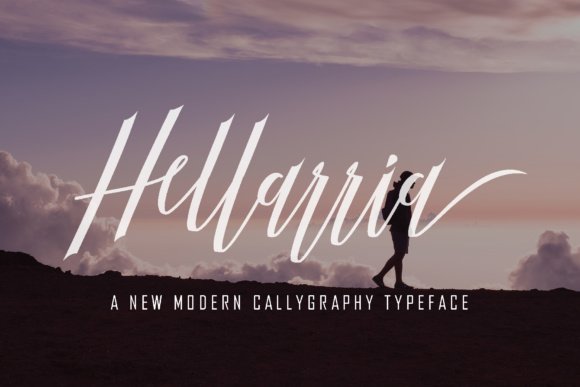
The Perfect Script Font for Your Next Creative Project
Have you ever found yourself stuck in a creative rut, struggling to come up with the perfect font to match your vision? You know the feeling – it’s like your entire design is waiting for the perfect script to tie it all together. That’s exactly what happened to me when I was working on a recent project, and then I stumbled upon the Hellarria Script Font.
This beautifully crafted font is a modern script font that was handwritten with unique, modern forms of calligraphy in mind. With Hellarria Script Font, you can add a touch of elegance and sophistication to any design, from wedding invitations to logo designs. What I love most about this font is its versatility – it’s perfect for both digital and print projects, making it a valuable tool for designers of all levels.
Hellarria Script Font Key Features
- Font Family: Hellarria Script
- Unique Characteristics: Elegant, cursive script font with a vintage touch; perfect for creative projects, invitations, and branding
- Language Support: Multilingual support, including Latin, Cyrillic, and Greek alphabets
Hellarria Script Font Review
Honestly, I was a bit skeptical about trying Hellarria Script Font at first. I mean, who doesn’t love a good script font, right? But, let me tell you, this one has some great qualities that make it worth a closer look. ✨
- Firstly, the font is incredibly elegant and sophisticated. It’s perfect for any project that needs a touch of luxury and refinement.
- Another thing I love about Hellarria Script is its versatility. It can be used for both title and body text, making it a great all-around choice for designers.
- The font also comes in a range of weights and styles, which is always a bonus when it comes to customizing your design.
However, there are a few limitations to consider. ⚠️
- One thing I found a bit frustrating was the font’s inconsistent spacing. Sometimes, the letters would be a bit too close together, which can make the text look cluttered.
- Another issue I encountered was the font’s limited support for non-Latin characters. If you’re working on a project that requires a lot of foreign language support, you might find yourself limited by Hellarria Script.
Overall, I’d say that Hellarria Script is a solid choice for designers who need a high-end script font. While it’s not perfect, its strengths far outweigh its weaknesses. With a bit of tweaking and adjustment, this font can really shine.
Hellarria Script Font: A Practical Application Guide
For best results, use Hellarria Script Font for titles, headings, and decorative text. It’s also great for creating invitations, posters, and social media graphics.
Experiment with different font sizes and colors to achieve a unique look.
Alternatives to Hellarria Script Font
Great Vibes is a beautiful, elegant script font that is perfect for adding a touch of sophistication to your designs. It has a classic, handwritten feel that is ideal for wedding invitations, quotes, and other creative projects.
Comparison to Hellarria Script Font: Great Vibes has a more refined and polished look compared to Hellarria Script Font, making it suitable for more formal designs. Hellarria Script Font, on the other hand, has a more playful and whimsical feel.
Alex Brush is a modern script font that is perfect for designers who want to add a touch of elegance and sophistication to their projects. It has a beautiful, handwritten feel that is ideal for branding, packaging, and other creative projects.
Comparison to Hellarria Script Font: Alex Brush has a more modern and sleek look compared to Hellarria Script Font, making it suitable for more contemporary designs. Hellarria Script Font, on the other hand, has a more vintage and classic feel.
Pacifico is a beautiful, elegant script font that is perfect for adding a touch of sophistication to your designs. It has a classic, handwritten feel that is ideal for branding, packaging, and other creative projects.
Comparison to Hellarria Script Font: Pacifico has a more refined and polished look compared to Hellarria Script Font, making it suitable for more formal designs. Hellarria Script Font, on the other hand, has a more casual and relaxed feel.